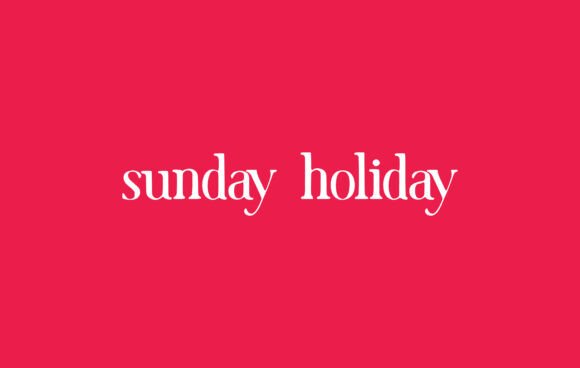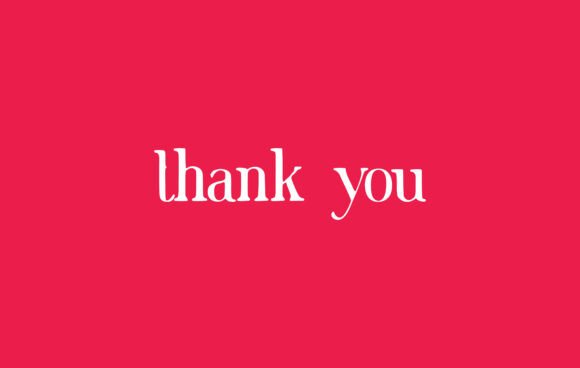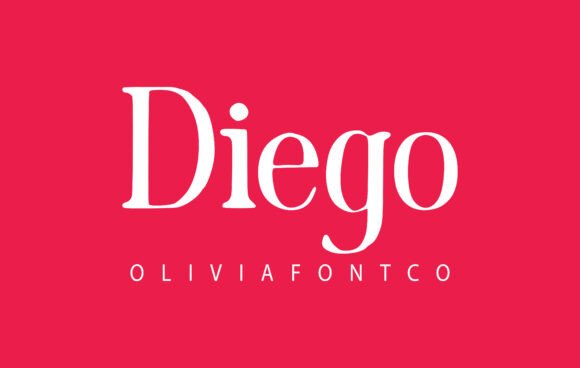
Discover the Charm of Diego Font: Elevate Your Designs with a Romantic Touch
In the world of typography, a good font can make all the difference in elevating your creative projects from ordinary to extraordinary. For designers and crafters looking for that special something to add a touch of elegance and romance to their work, the Diego Font is an exceptional choice. This authentic handwritten font is not just a typeface; it’s a statement piece that brings a unique blend of sophistication and charm to any design.
The Essence of Diego Font
Diego Font is an expertly designed, authentic handwritten font that exudes a romantic touch. Its creation is a testament to meticulous craftsmanship, aimed at providing a typeface that resonates with creativity and elegance. The font’s design ensures it is not only visually appealing but also highly legible, making it versatile for use as both title and body text.
One of the standout features of the Diego Font is its incredible versatility. Its aesthetic appeal is broad, making it suitable for a myriad of design projects. Whether you’re working on:
- Magazine headlines that need to capture attention with a touch of class,
- Social media graphics that require a distinctive look,
- Branding materials that reflect a company’s personality,
- Wedding invitations that demand elegance and romance,
- Cards and other stationery that seek to leave a lasting impression,
the Diego Font proves to be a reliable and stylish companion. Its unique character set ensures that your designs stand out, conveying the intended message with both clarity and style.
Why Choose Diego Font?
There are several reasons why designers and crafters are gravitating towards the Diego Font:
- Romantic Aesthetic: In an era where digital designs dominate, the Diego Font offers a refreshing, handcrafted feel that adds warmth and personality to digital and print media alike.
- Legibility: Despite its artistic nature, the font maintains high legibility, ensuring your message is conveyed clearly and effectively.
- Flexibility: Its suitability for both headings and body text makes it a practical choice for comprehensive design projects.
- Elegance: The font’s inherent elegance makes it perfect for projects requiring a sophisticated look, such as wedding invitations and luxury brand advertisements.
The Diego Font is more than just a typeface; it’s a tool for designers and crafters to express their creativity with elegance and romance. Its authentic handwritten feel, combined with its legibility and versatility, makes it an invaluable asset for a wide range of design projects. Whether you’re aiming to create stunning magazine headlines, captivating social media posts, or elegant wedding invitations, the Diego Font is poised to elevate your designs to new heights. Embrace the charm of the Diego Font and let your creativity shine with a touch of sophistication and romance.